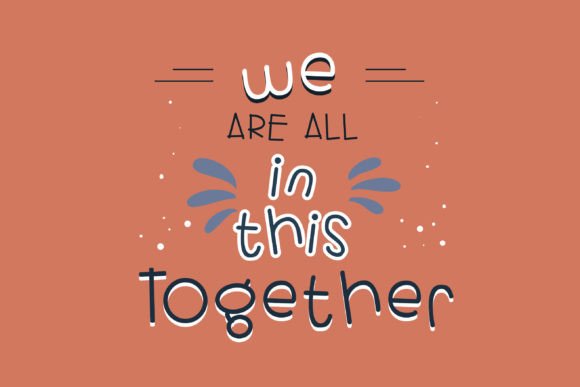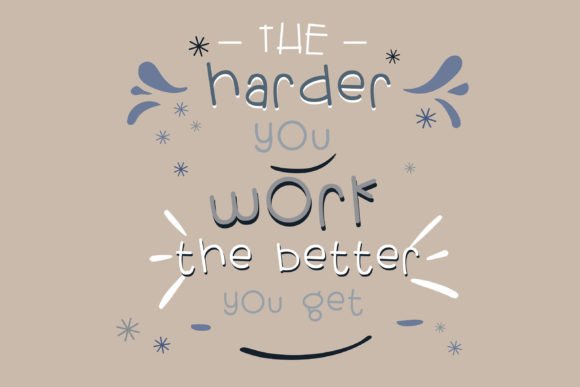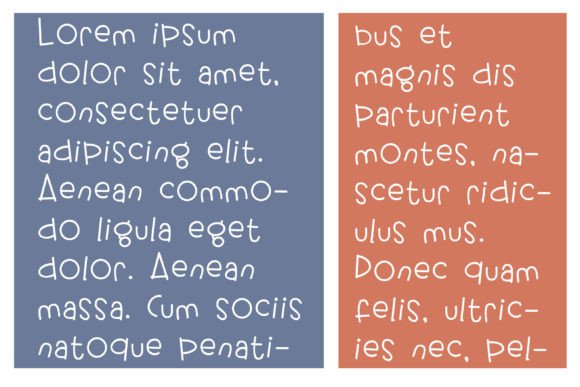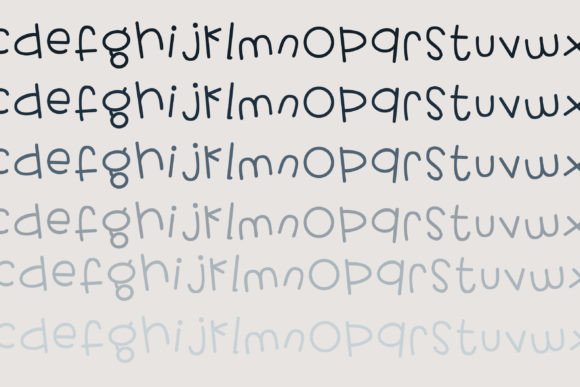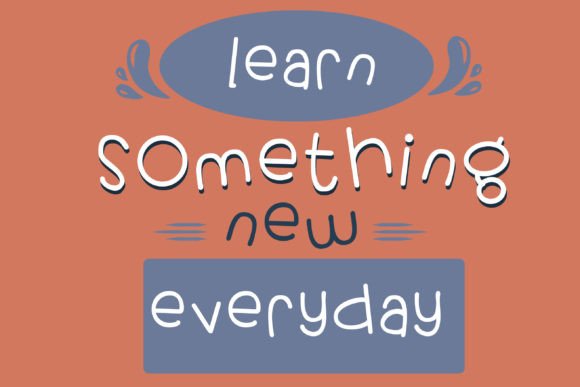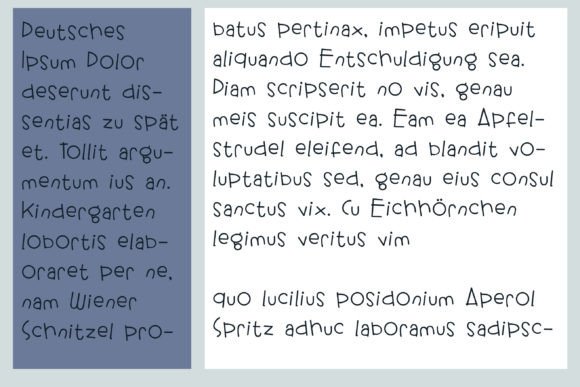
The Perfect Blend of Whimsy and Creativity: Introducing Checkmunk Font
Have you ever stared at a blank canvas, trying to conjure up the perfect design? The blank page staring back at you can be daunting, but sometimes all it takes is the right tool to spark your creativity. For designers looking to add a touch of whimsy to their projects, the Checkmunk Font is a game-changer. This hand-crafted sans serif font is designed to evoke a sense of youthful energy and playfulness, making it perfect for invitations, greeting cards, and other items that require a personal touch.
The Checkmunk Font is more than just a pretty face – it’s a valuable asset for designers who want to add a unique touch to their work. Its hand-crafted nature gives it a one-of-a-kind feel that’s hard to replicate with digital fonts. Whether you’re working on a wedding invitation or a children’s birthday card, the Checkmunk Font is sure to bring a smile to your client’s face.
Checkmunk Font Key Features
- Font Family: Checkmunk Font is a sans-serif font family designed for digital use. It is available in 10 styles, ranging from Thin to Black.
- Character Set: The font includes a comprehensive set of characters, including Latin, Cyrillic, and Greek alphabets, as well as punctuation and symbols.
- Unique Characteristics: The font features a unique blend of modern and minimalist design elements, with clean lines, rounded edges, and a subtle texture that gives it a distinctive look.
Checkmunk Font Review
As a designer, I was excited to dive into the Checkmunk Font and see what it has to offer. ✨ One of the first things I noticed was the sleek, modern aesthetic that’s perfect for contemporary designs. The font’s versatility and adaptability make it a great choice for a wide range of projects, from logos to digital products.
Here are some of the things that work well with Checkmunk Font:
- ✨ The font’s clean and minimalistic design makes it easy to read and understand.
- ✨ The bold and light weights provide excellent contrast and make it perfect for headings and titles.
- ✨ The font’s modern feel makes it perfect for trendy and edgy designs.
- ⚠️ The font may not be suitable for traditional or classic designs, as it has a distinctly modern feel.
- ⚠️ Some users may find the font too minimalist, which could make it difficult to use in certain contexts.
- ⚠️ The font’s versatility can also make it feel a bit generic, which may limit its impact in certain designs.
Overall, I think Checkmunk Font is a solid choice for modern designers looking for a clean and versatile font. While it may have some limitations, its sleek aesthetic and adaptability make it a great addition to any design toolkit.
Getting the Most Out of Checkmunk Font
For optimal results, use Checkmunk Font in conjunction with high-quality images and designs.
Experiment with different font sizes, colors, and styles to create a unique and engaging visual identity.
Checkmunk Font is ideal for:
Logo designs and branding materials
Infographics and data visualizations
Business cards and marketing materials
Alternatives to Checkmunk Font for Designers
Checkmunk Font is a popular font among designers, but it may not be suitable for every project. Here are some alternatives to consider:
Montserrat is a sans-serif font designed for urban environments. It’s great for use in headings and titles, especially in modern and minimalist designs. Montserrat is a bit more geometric than Checkmunk Font, making it a good choice for projects that require a clean and modern aesthetic.